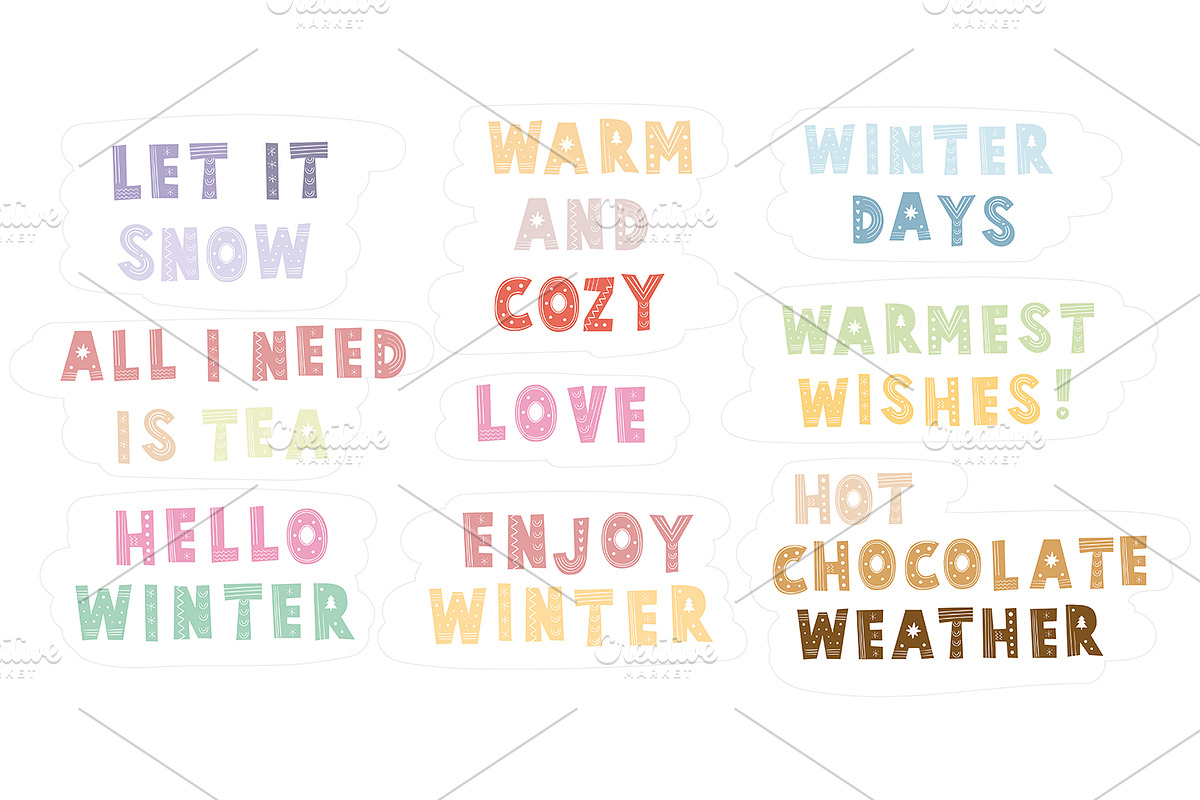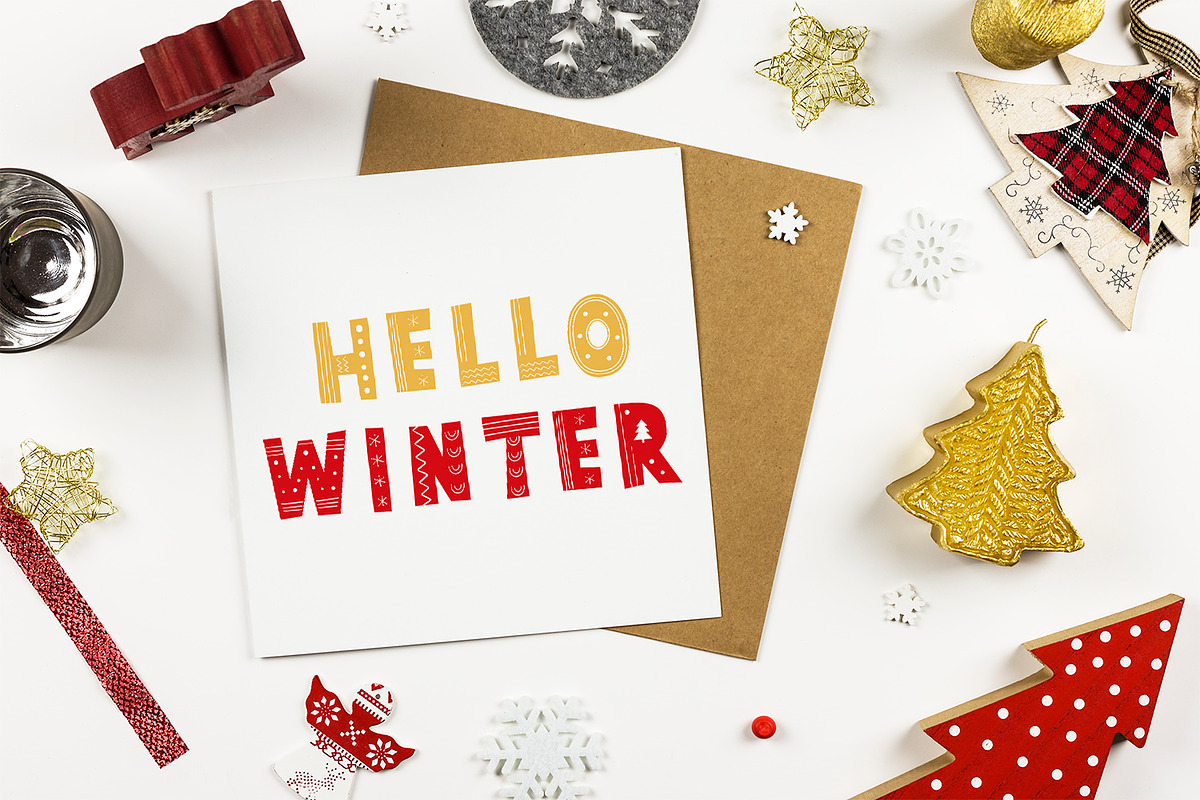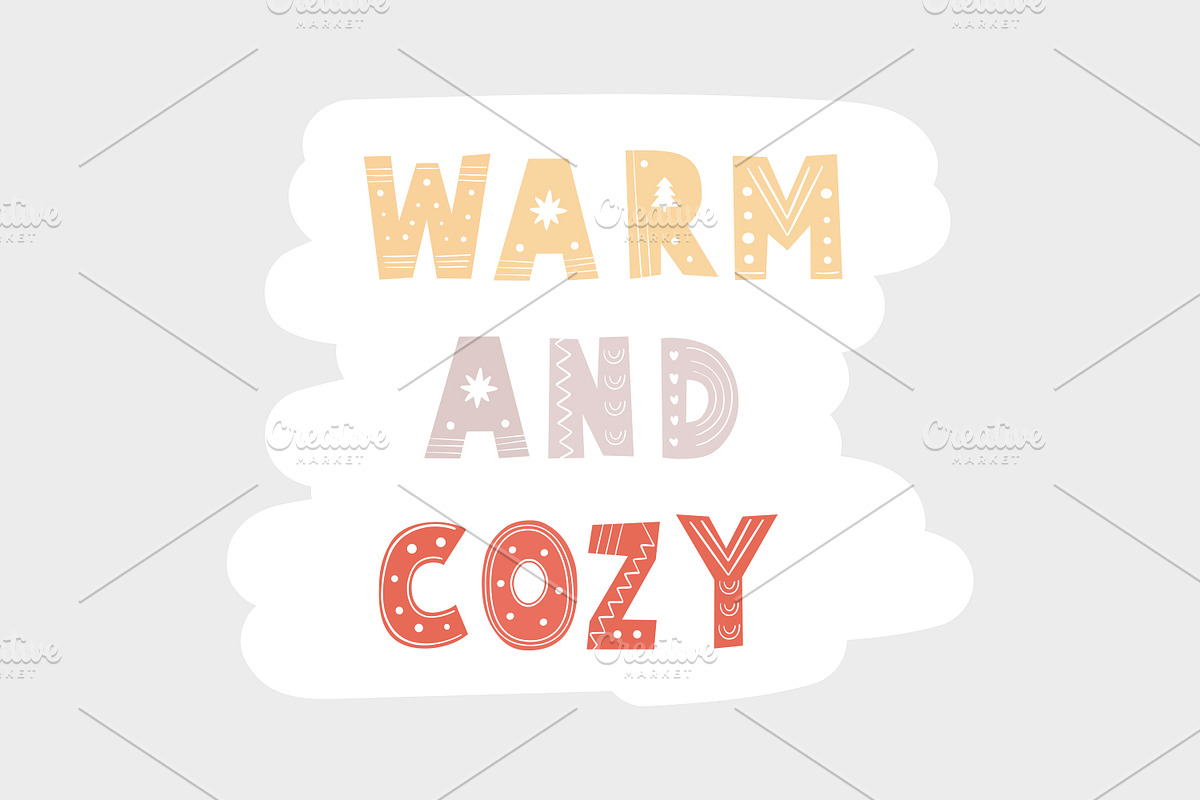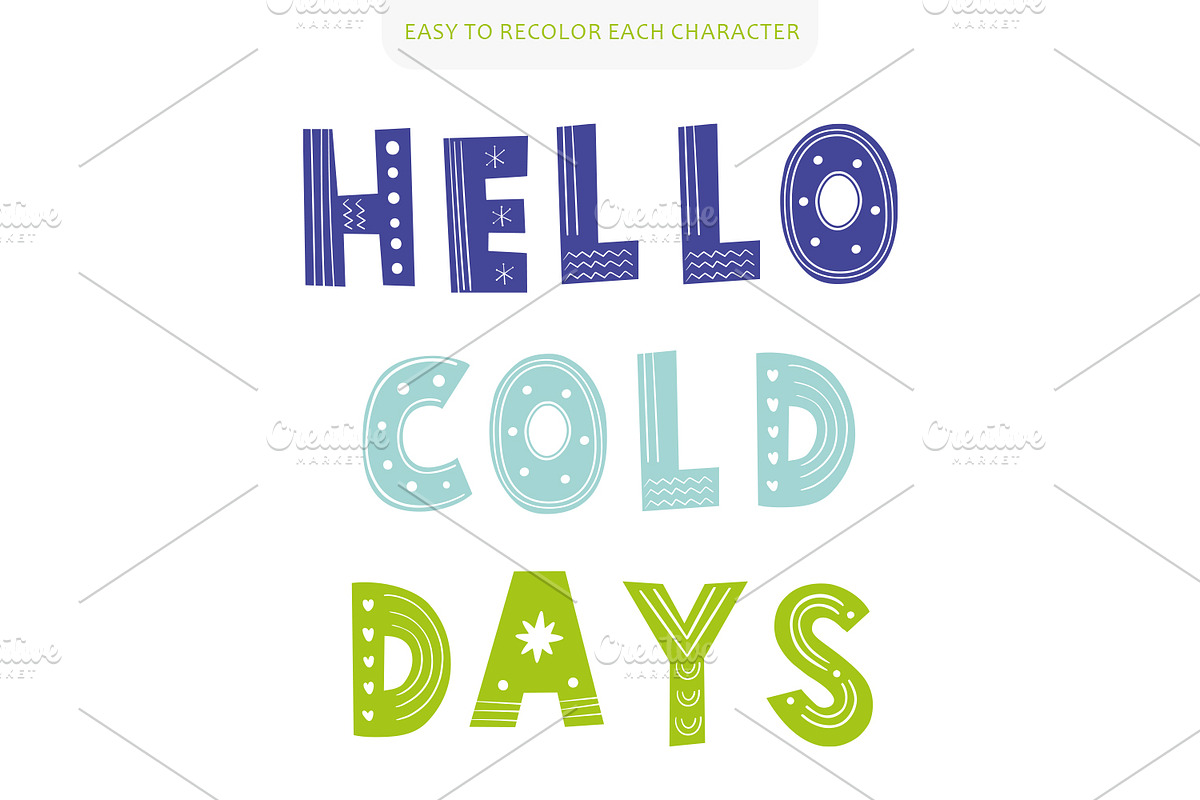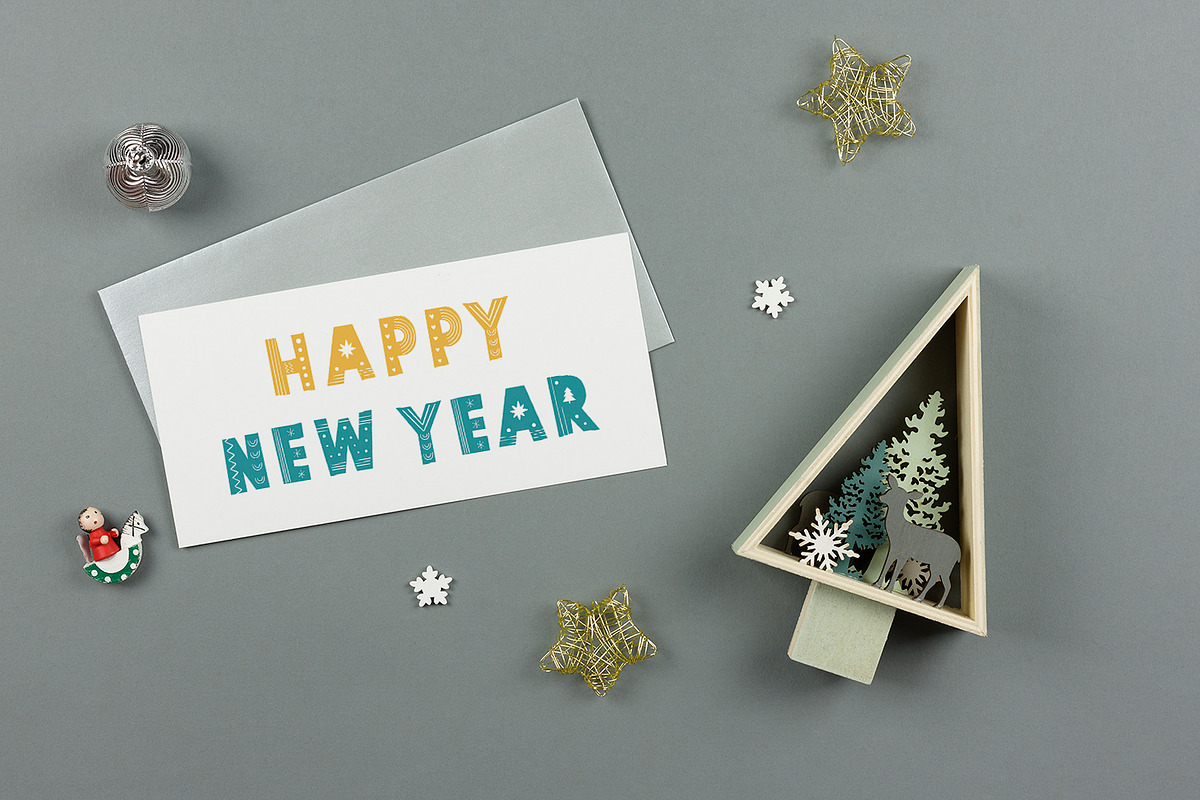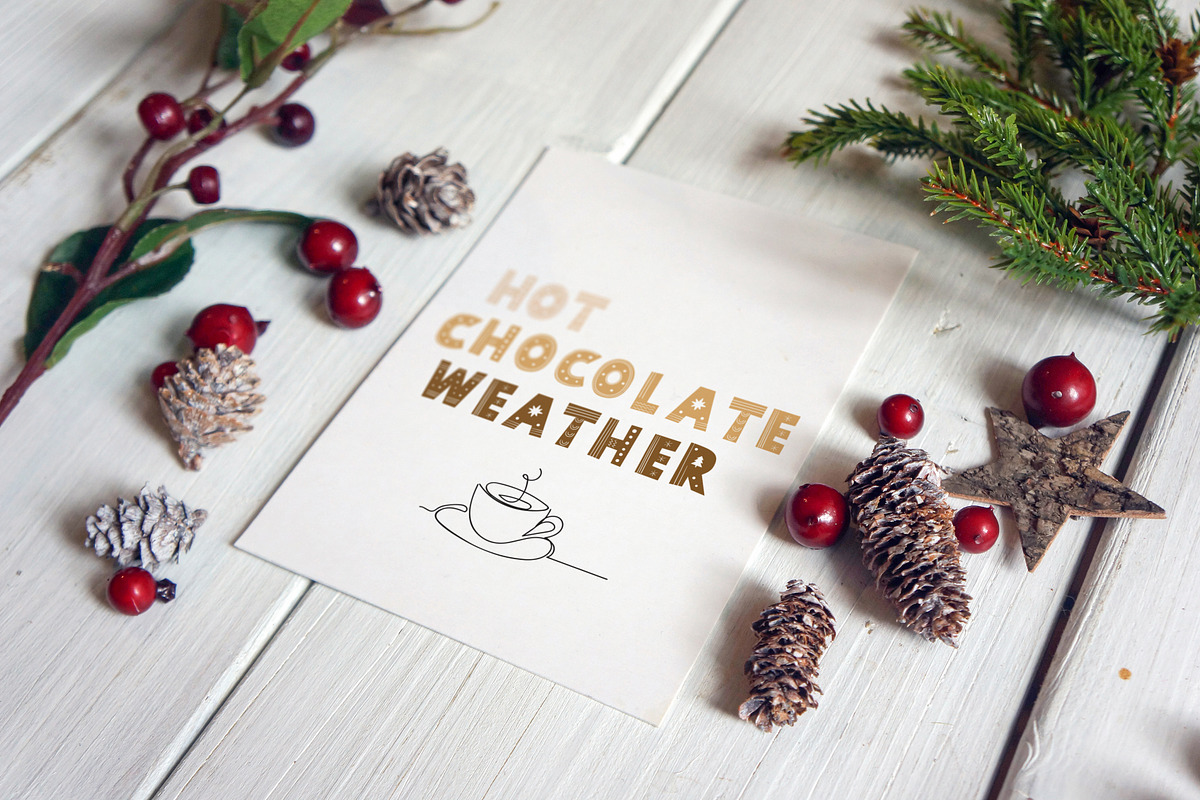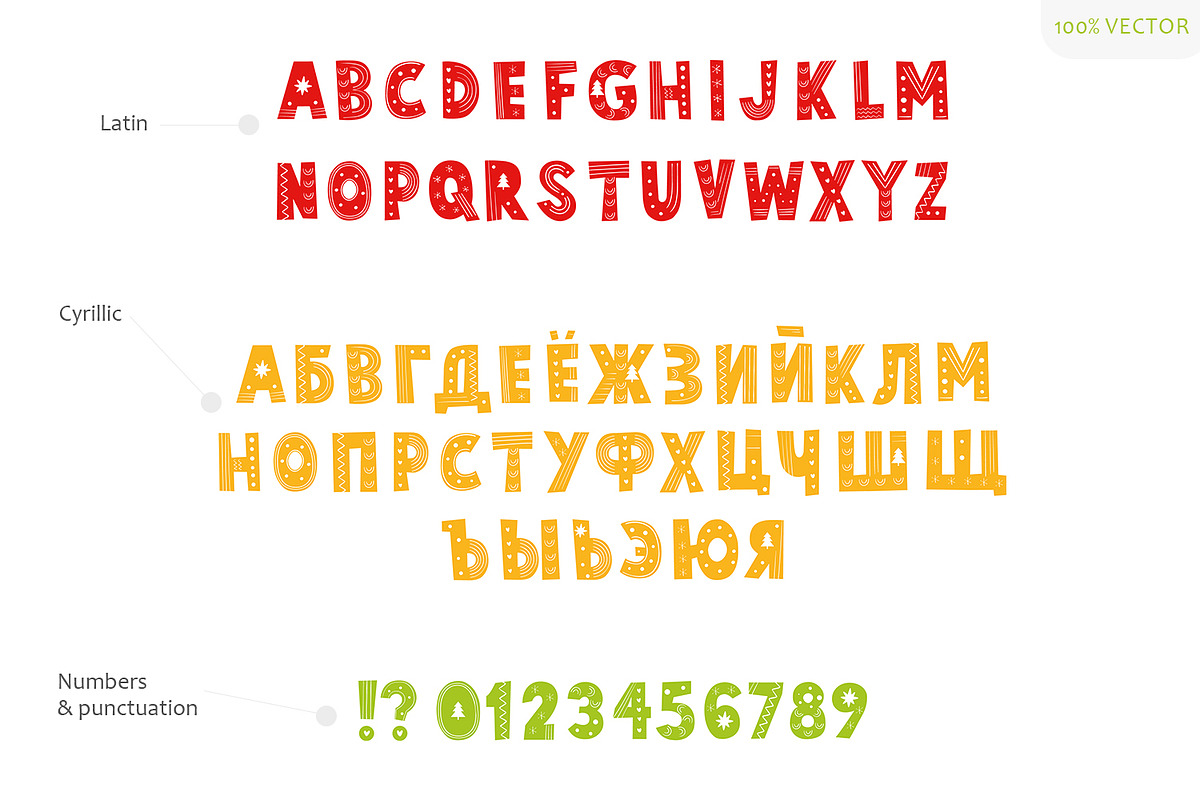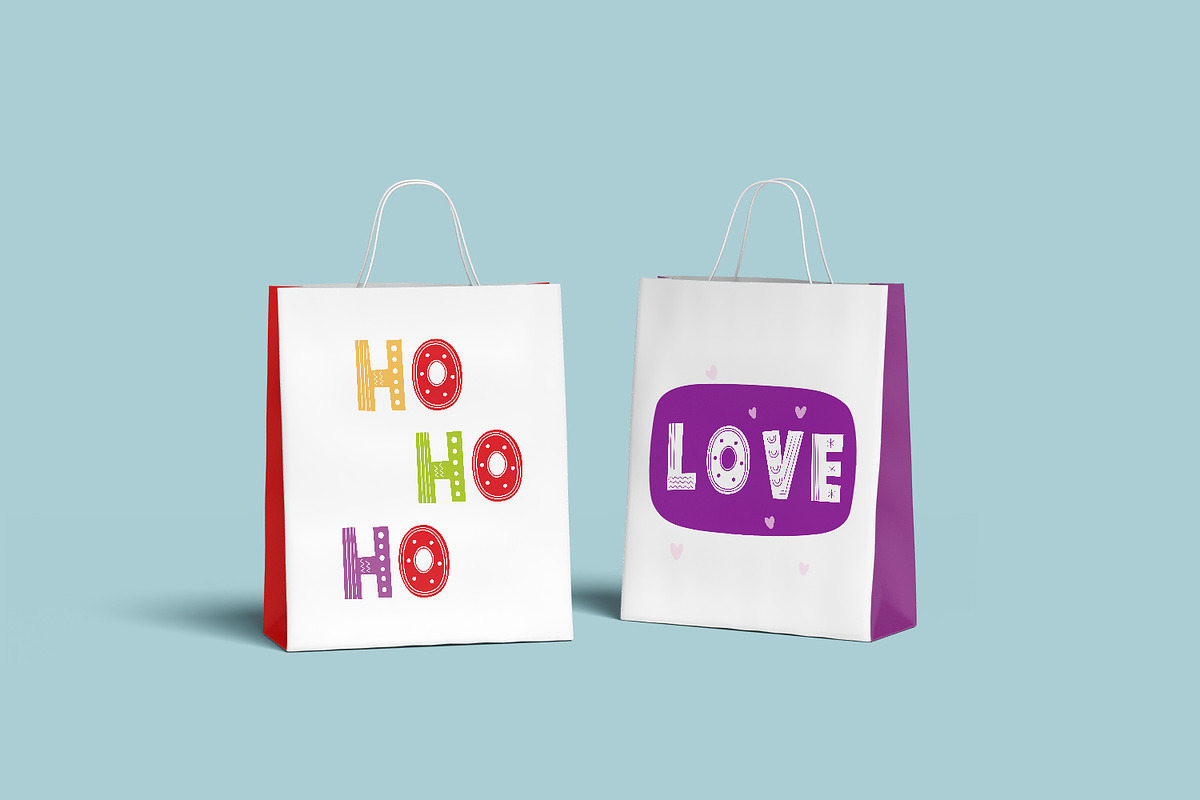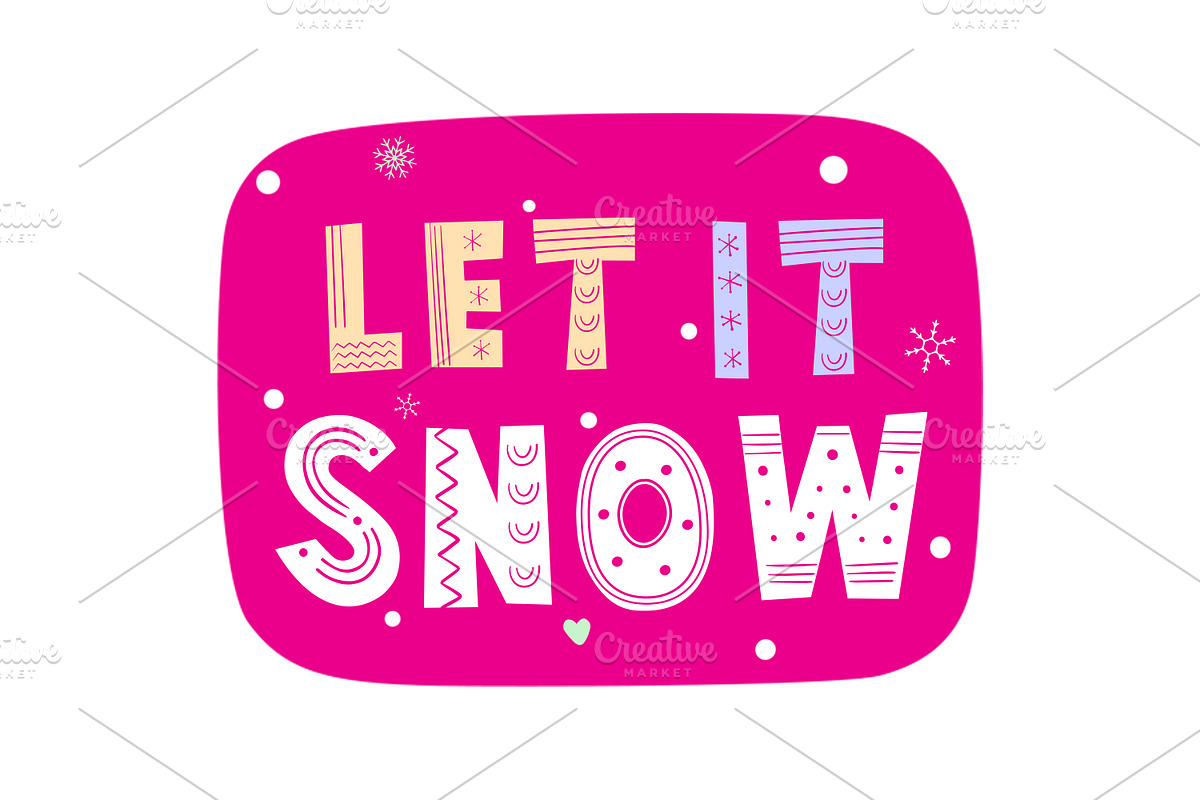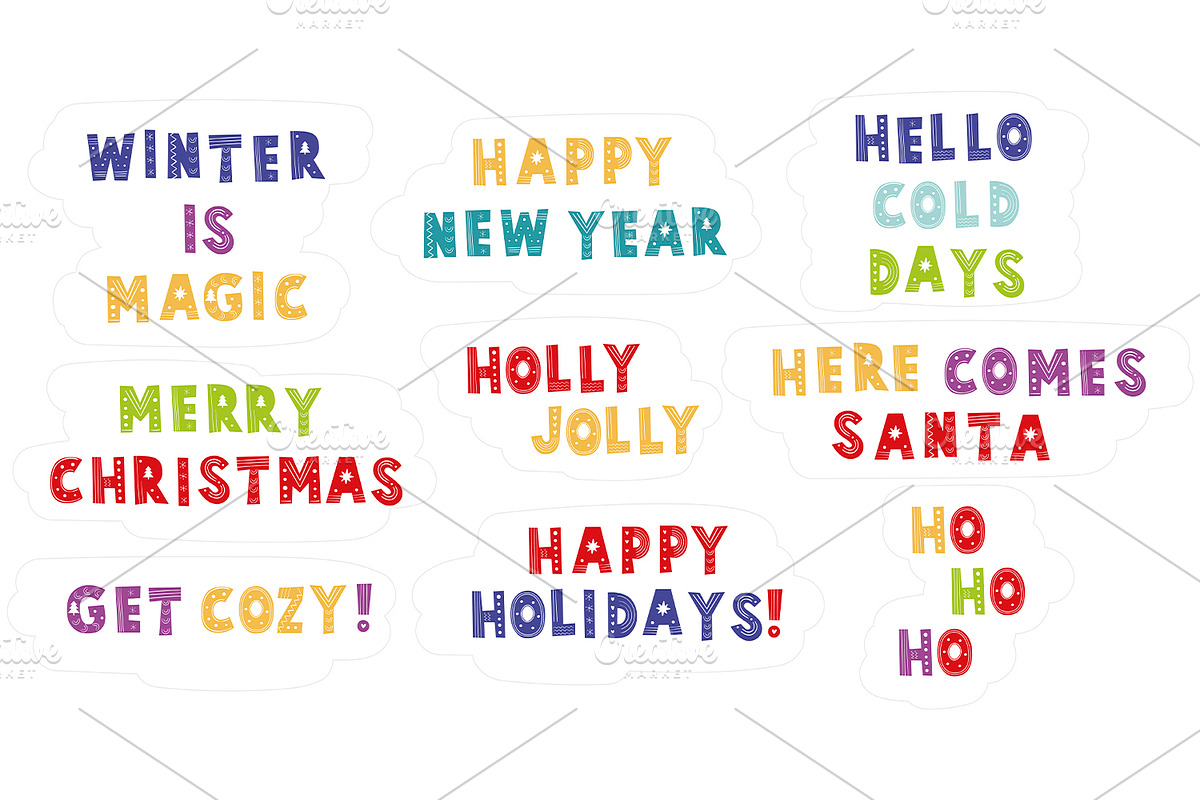
Hello Winter Typography
Hi there and welcome to Hello Winter Typography!
Here are a colourful decorated letters and numbers. The pack is including some ready-to-use badges and the alphabet. The files format is .AI/.EPS which is suitable for Adobe Illustrator and gives you a possibility to recolour each element and create different combinations.
"Hello Winter" features:
Perfect for decor, publishing, books, cards, posters, packaging, clothing, and more...